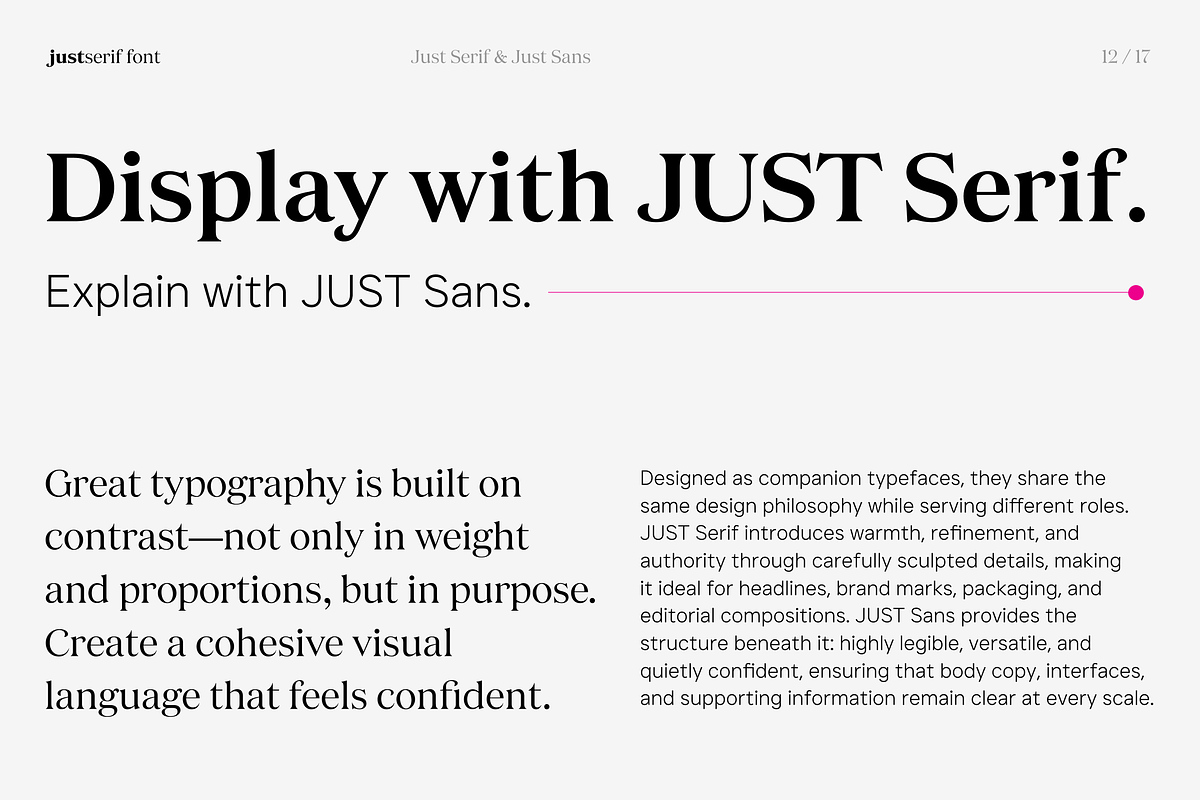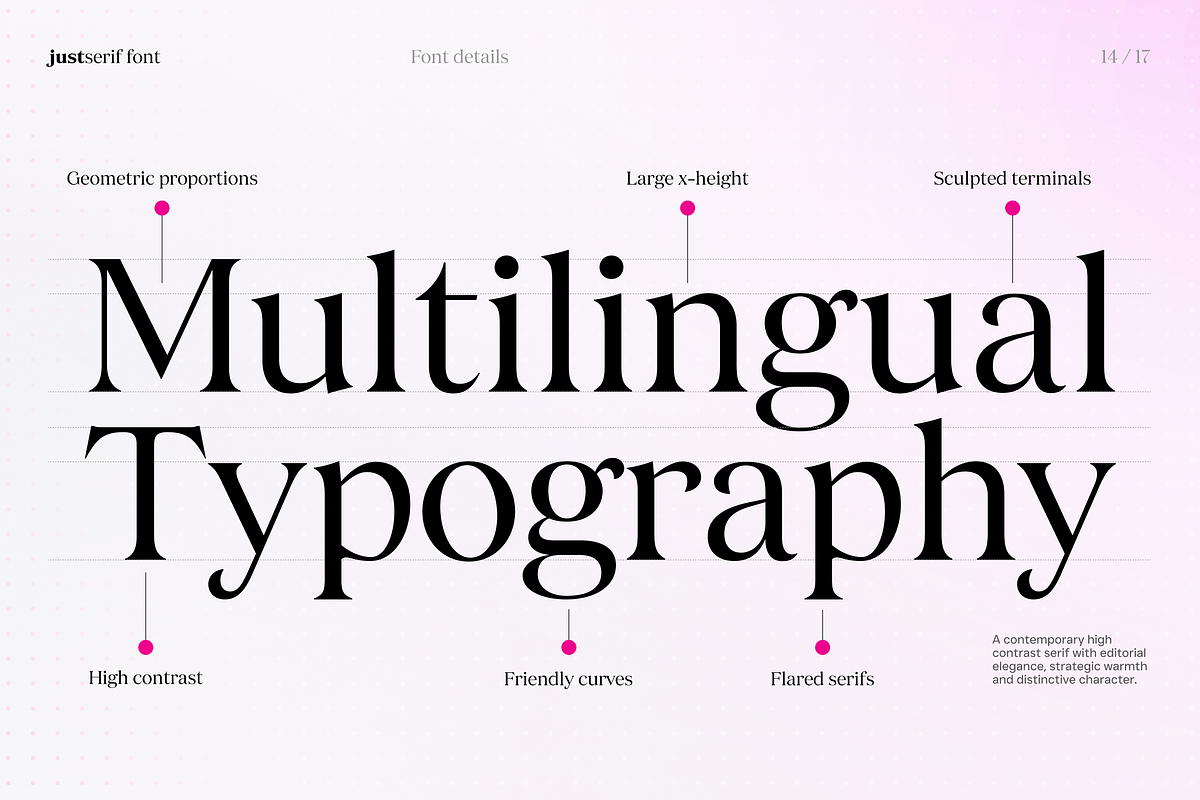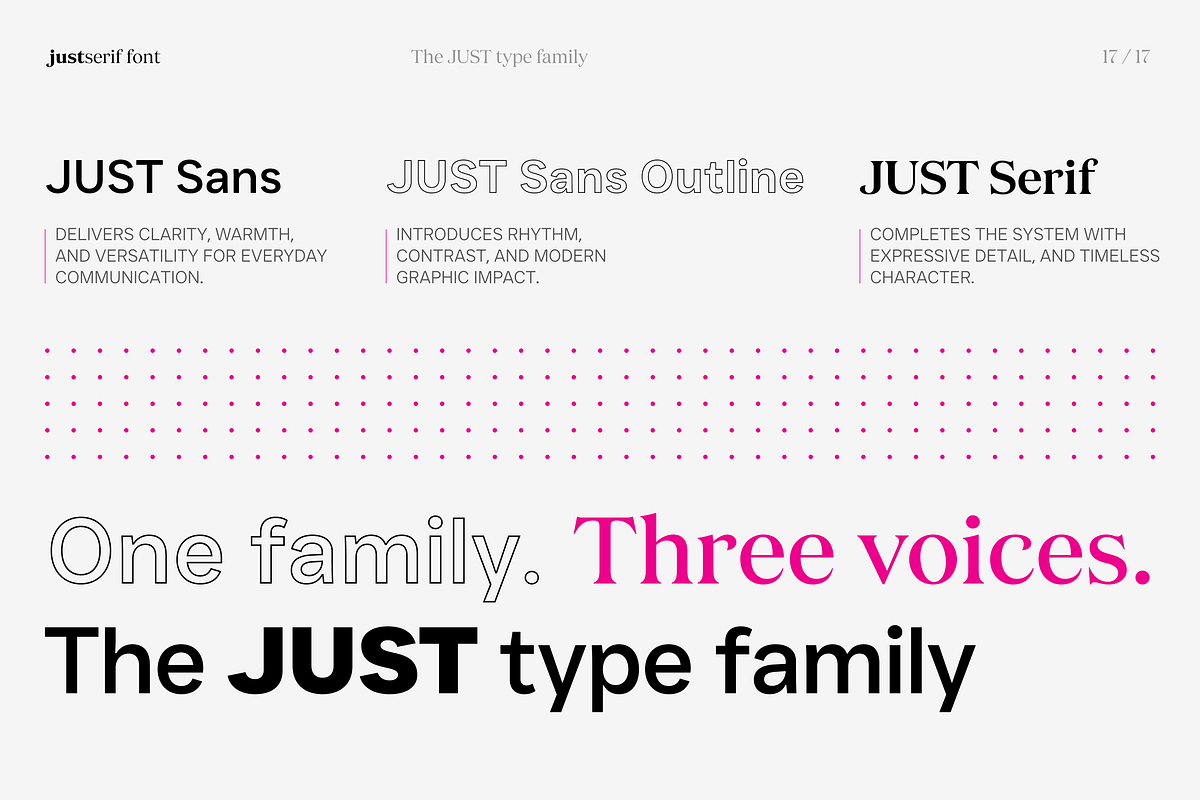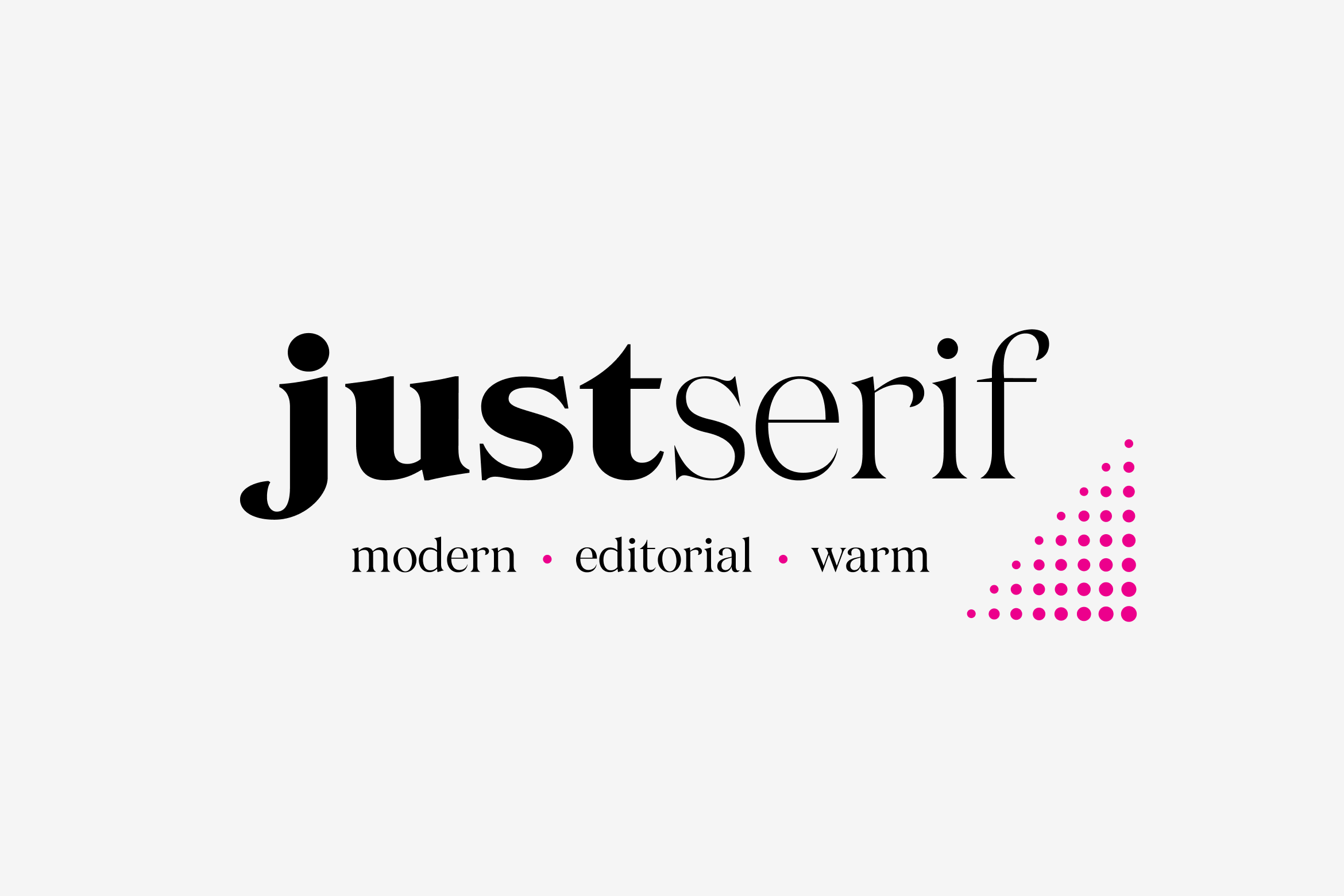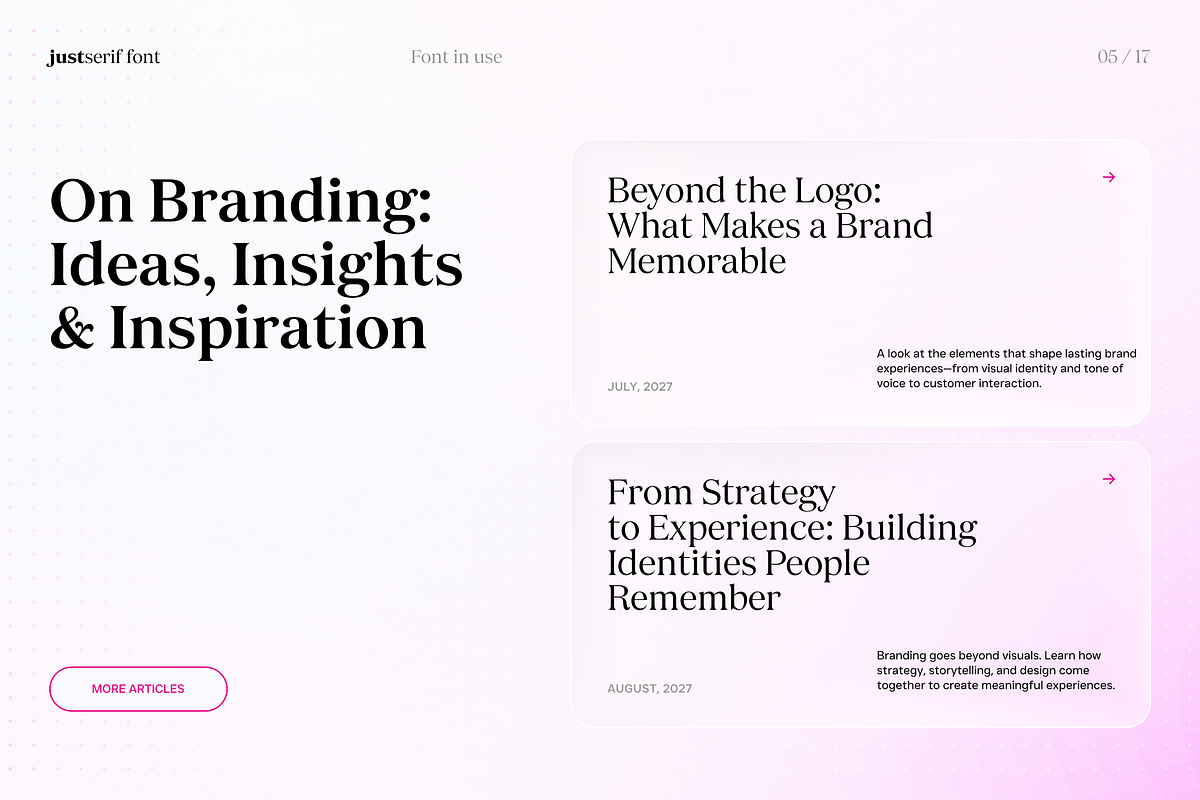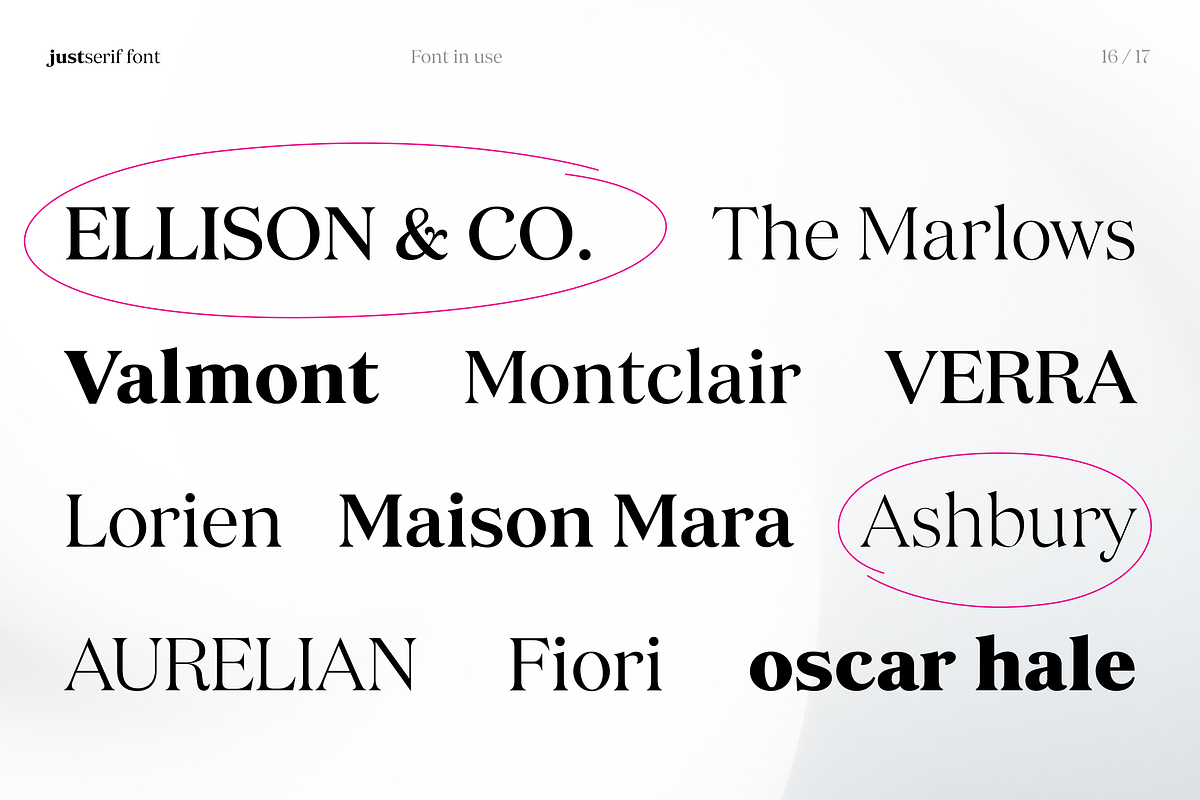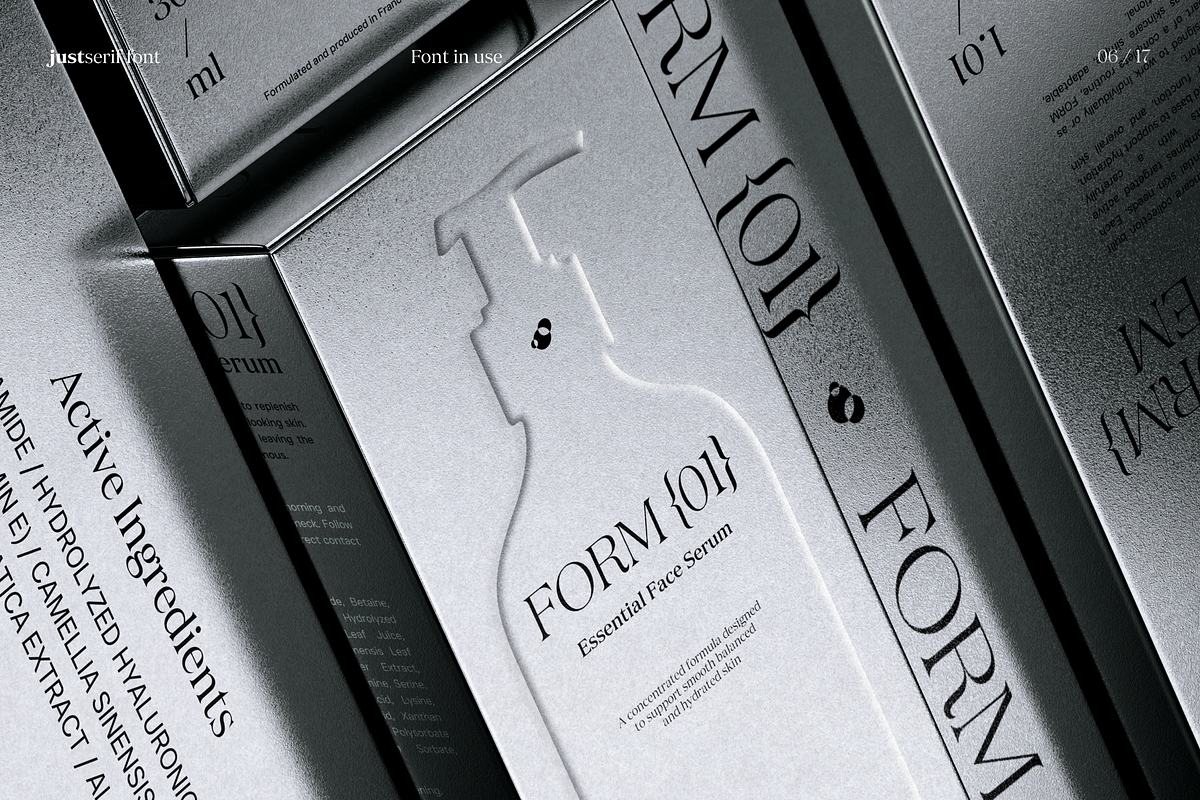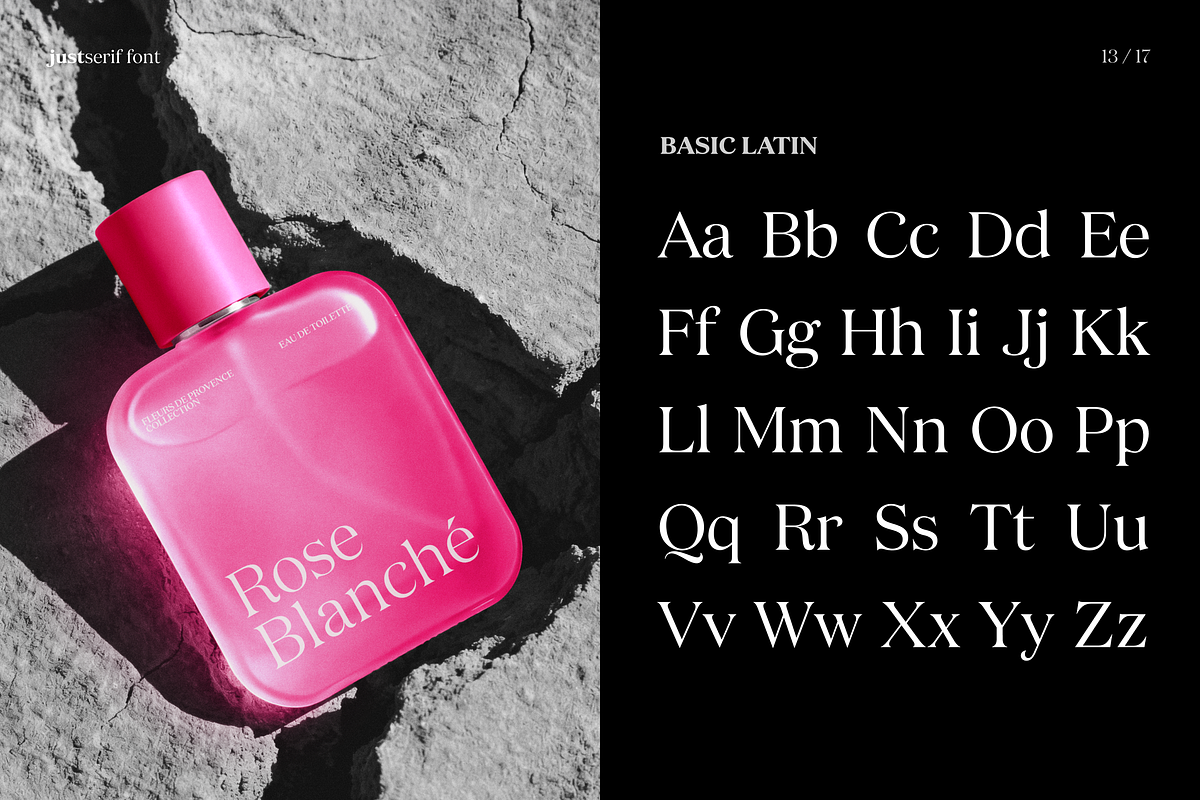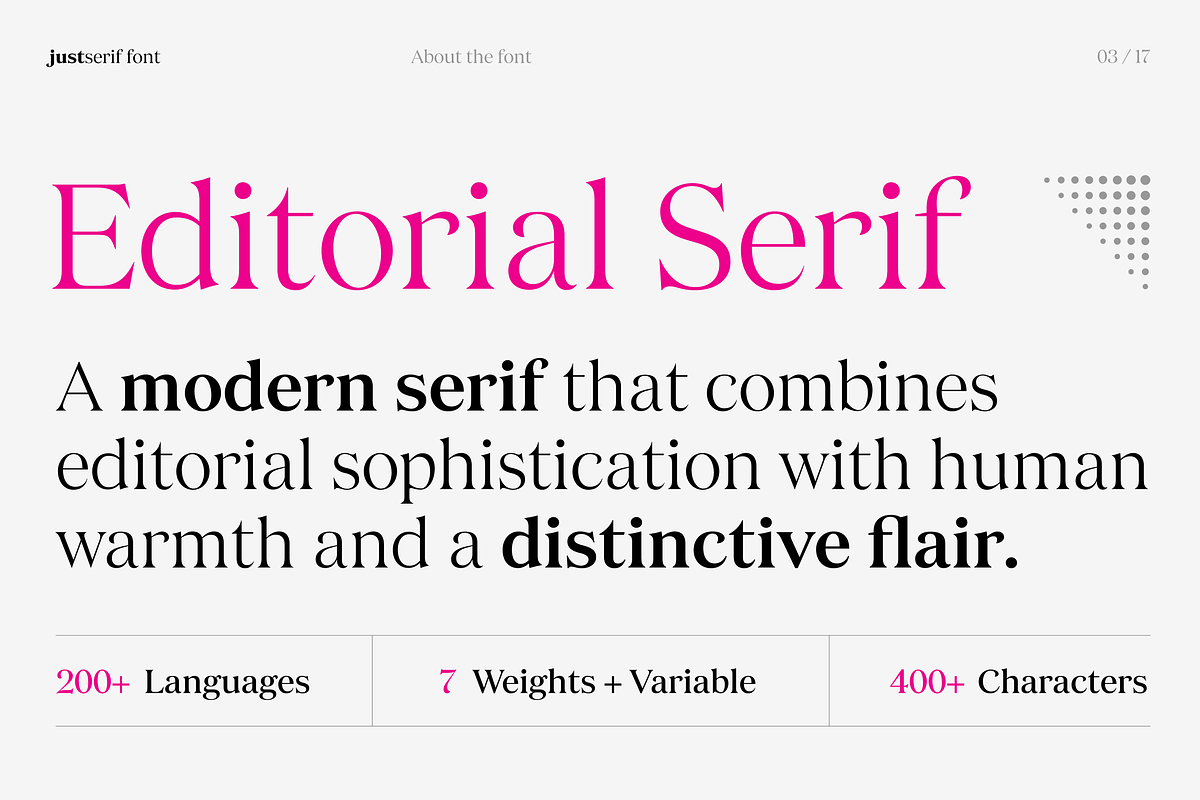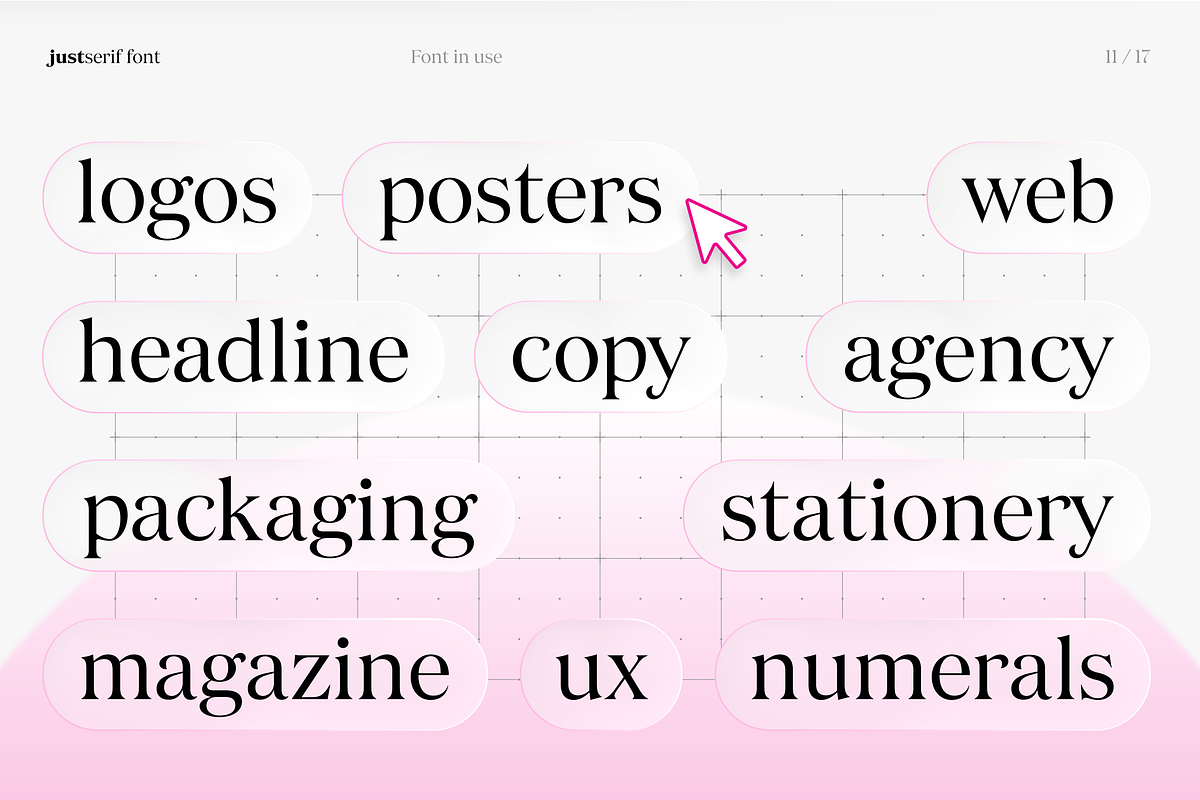
JUST Serif Modern Editorial Typeface
JUST Serif® is a contemporary editorial serif typeface with high contrast, sculpted details and human warmth.
Refined without feeling cold or ornamental, JUST Serif balances expressive elegance with an approachable personality. Its warm humanist curves, sculpted flared serifs, confident capitals and considered proportions bring distinctive character to every setting.
Designed for both print and digital, JUST Serif is a versatile choice for logos, brand identities, editorial layouts, magazines, book covers, packaging, wine labels, websites, hospitality, beauty, fashion and premium print applications.
Use it as a modern serif font for distinctive visual identities, an editorial serif for publishing, a high contrast serif for expressive headlines or a branding font for sophisticated design systems.
PERFECT FOR
• Logos and brand identities • Editorial and magazine design • Luxury and premium branding • Packaging and wine labels • Fashion and beauty • Hospitality and lifestyle brands • Book covers and publishing • Websites and digital design • Display typography • Posters and campaigns • Creative studios and agencies • Premium print applications
SEVEN CAREFULLY CRAFTED WEIGHTS
Move from delicate editorial typography to confident display headlines with a complete range of seven weights:
• Extra Light • Regular • Medium • Semi Bold • Bold • Extra Bold
The included Variable Font gives you additional control over weight, allowing you to fine tune the typography for each application.
COMPLETE THE JUST TYPE COLLECTION
JUST Serif was designed to work alongside JUST Sans® and JUST Sans Outline® as part of a complete typographic system.
JUST Serif brings editorial elegance, expressive contrast and human warmth.
JUST Sans provides clarity, versatility and highly legible supporting typography.
JUST Sans Outline adds graphic impact, dimensional contrast and expressive display treatments.
Together, the three families provide a flexible visual language for modern brand identities across print and digital applications.